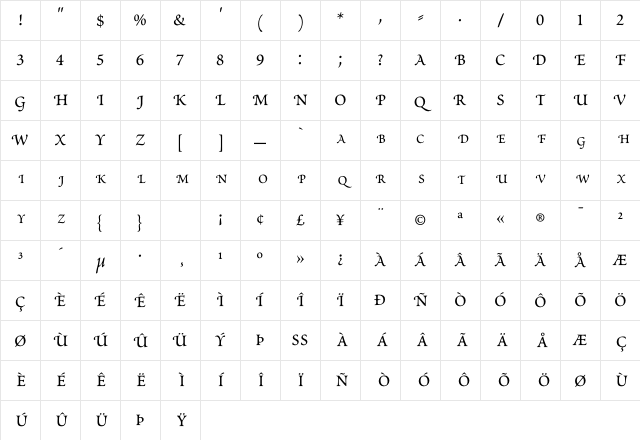
Complete LHF Lakeside Regular 2 Regular glyph index. Displaying only characters natively supported by LHF Lakeside Regular 2 Regular font.
LHF Lakeside Regular 2 is a composed and adaptable typeface that performs quietly and consistently across a wide range of design contexts.